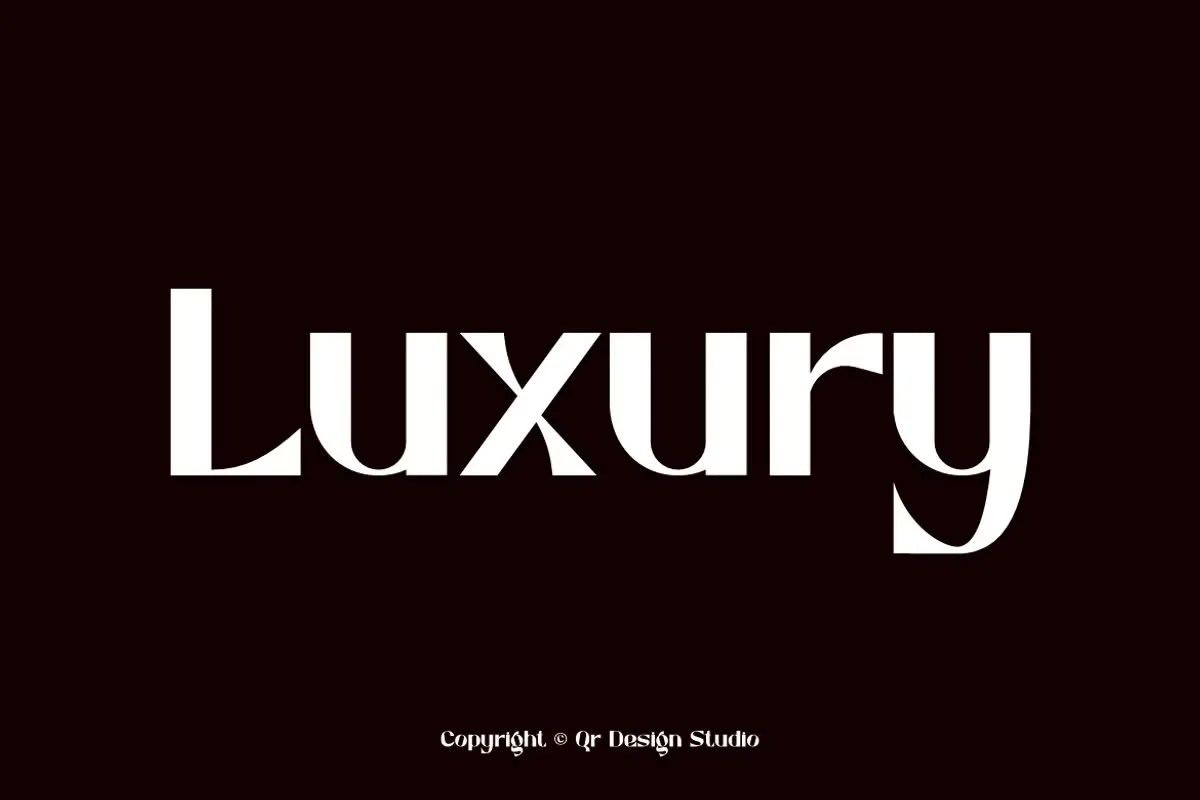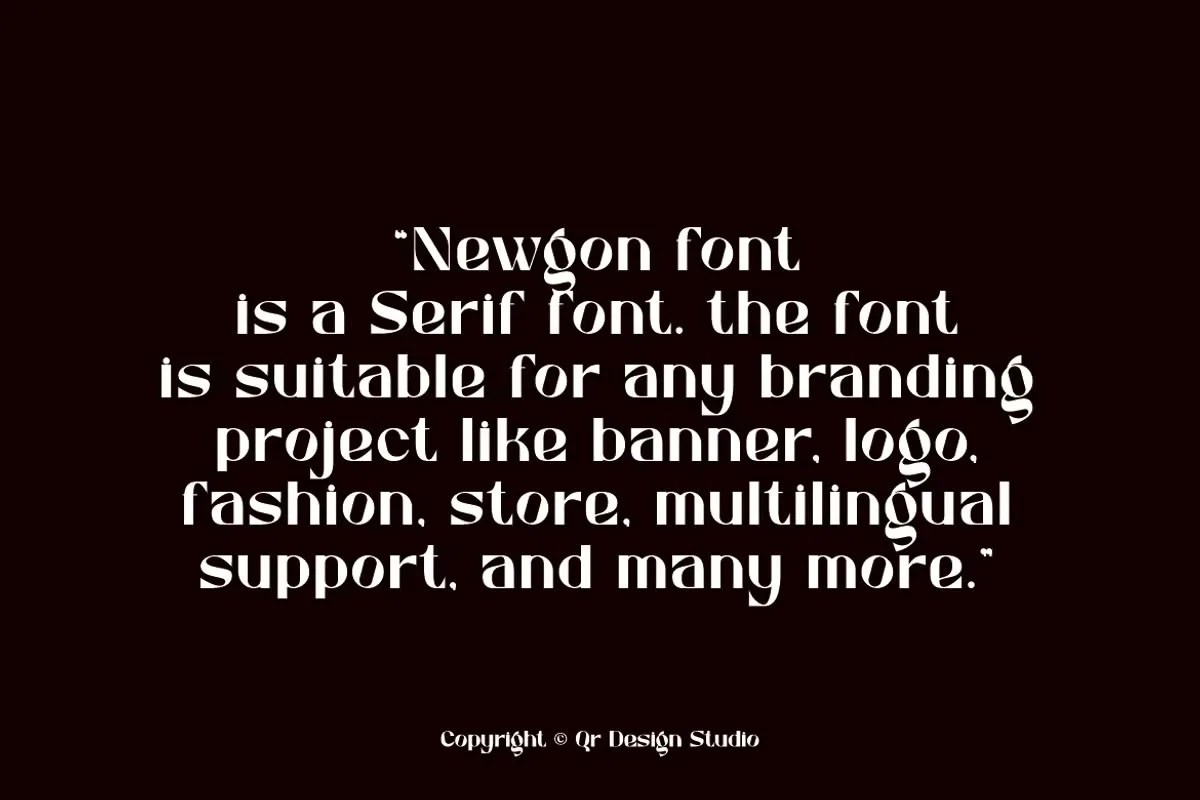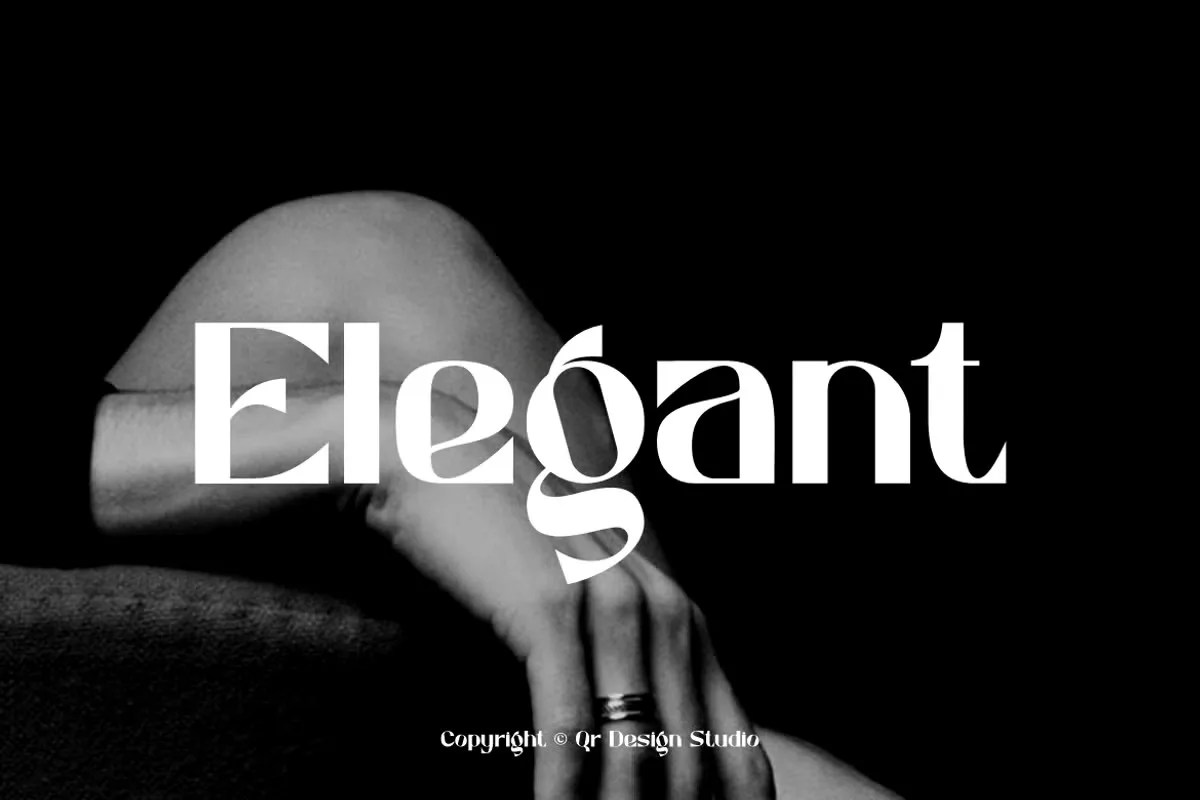
Newgon by QR Design Studio. This is a precision-engineered geometric sans serif font built for the future. It draws direct inspiration from clean lines and perfect, simple shapes. The typeface offers a crisp, technical, and undeniably modern aesthetic. Newgon is the ideal choice for projects that demand absolute clarity and a forward-thinking style, communicating with efficiency and elegance.
Newgon’s entire design relies on pure geometric forms. For example, letters like the ‘O’ are derived from perfect circles, while others follow the strict logic of squares and straight lines. This approach gives the font a very stable and consistent feel. In addition, its clean, uniform strokes ensure maximum legibility across all sizes and applications. Consequently, the font communicates with a clear, logical, and unambiguous voice. It represents the very essence of functional, minimalist design where form follows function.
• Modern geometric sans serif style
• Features clean, uniform letterforms
• Ideal for tech, sci-fi, and corporate branding
• Provides a futuristic and clean aesthetic
Newgon